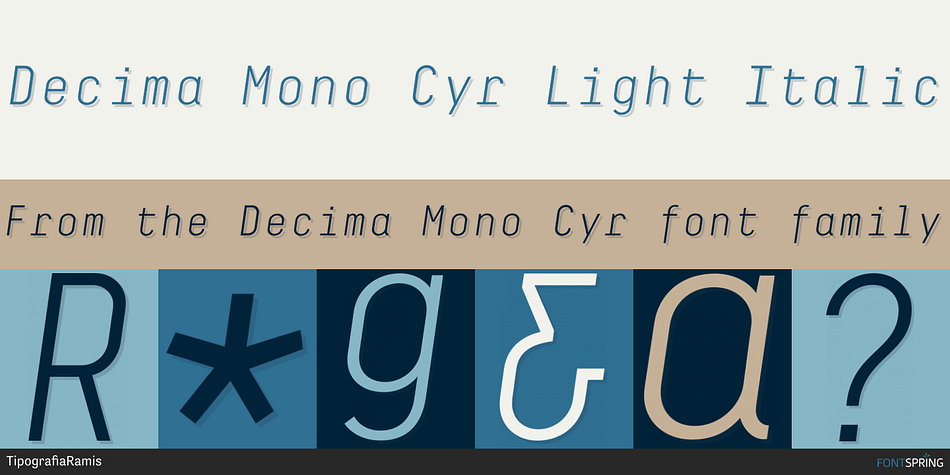
Decima Mono Cyr Light Italic
Designed by Ramiz Guseynov, Decima Mono Cyr is a display sans font family. This typeface has six styles and was published by TipografiaRamis.
Decima Mono Cyr is an upgraded edition of Decima Mono X fonts (released in 2014). The new version consists of the same (six) styles updated with larger character sets by extending number of Latin and Cyrillics Asian region languages. The typeface is intended for use in display sizes, but is also quite legible in text and is well suited for editorial and brand design.